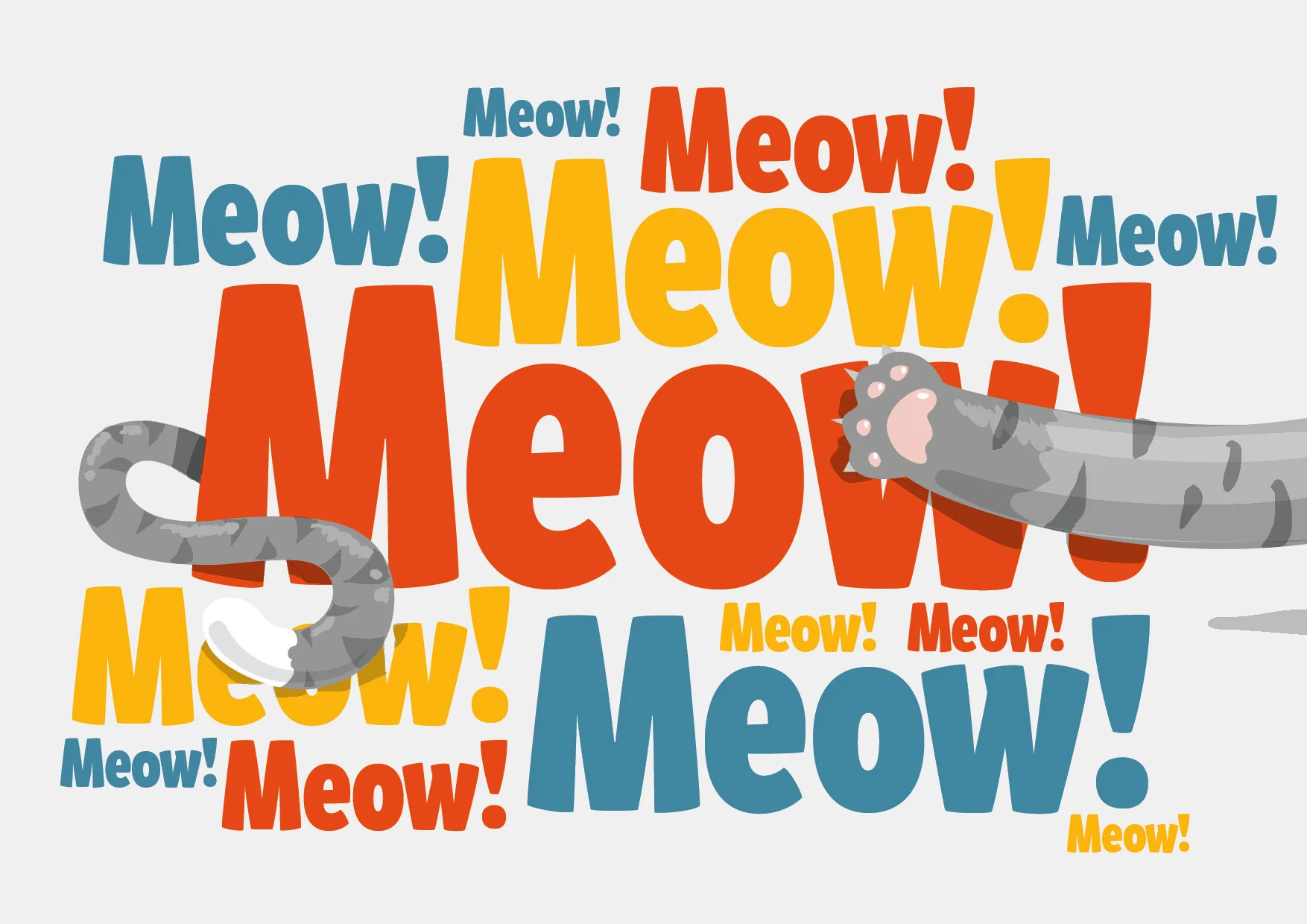
Mikado Condensed
HvD Fonts · Hannes von Döhren · 2013
A condensed cut of Hannes von Döhren's geometric sans Mikado, suited to display and signage work where horizontal space is tight.
Mikado Condensed narrows the proportions of the original Mikado while preserving its even stroke weight and rounded terminals. Seven weights from Thin to Black give it range across headlines and wayfinding contexts. The geometric structure keeps it clean at large sizes without the coldness of harder-edged condensed grotesques.
Mikado is a geometric sans-serif with rounded terminals and a friendly, even stroke; the Condensed variant narrows proportions for space-saving display use while retaining the geometric structure.